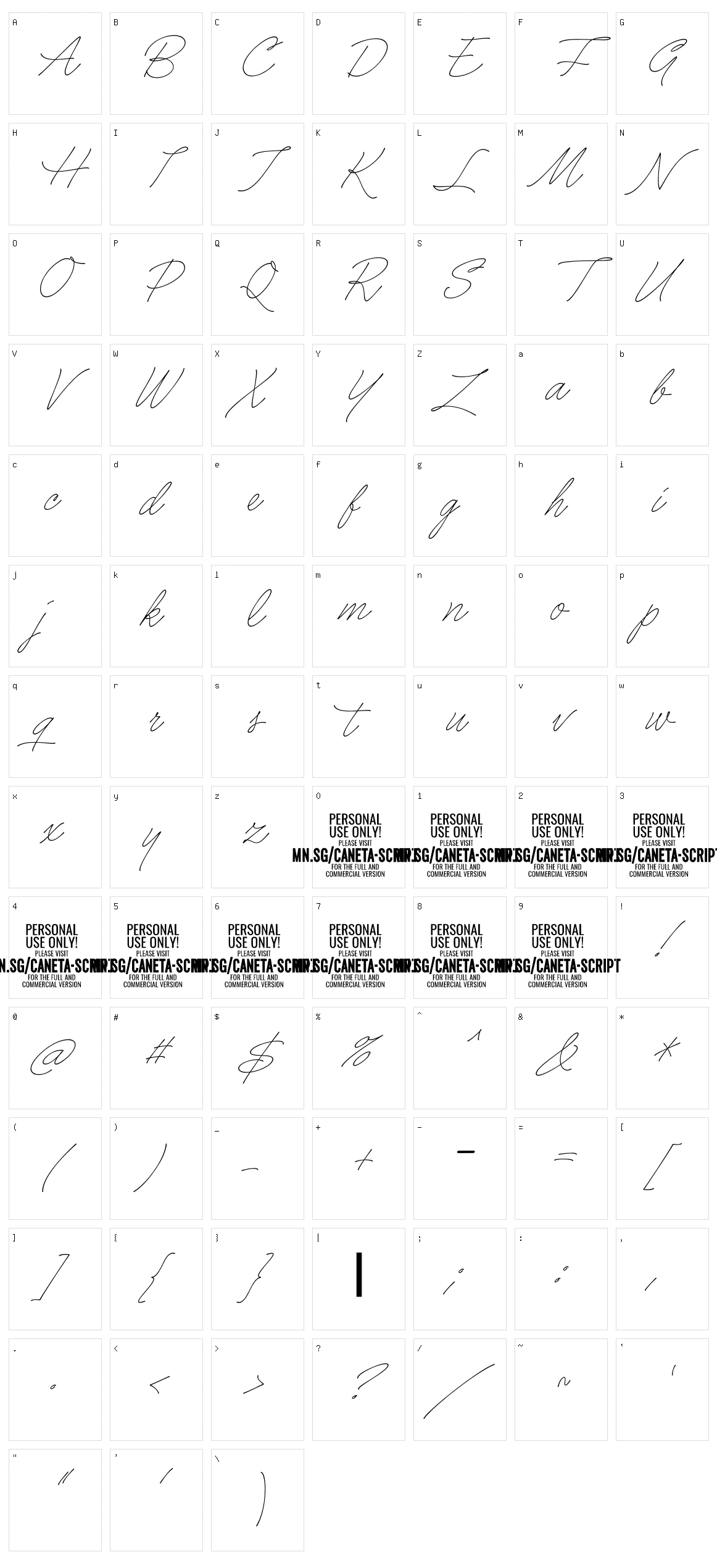
Caneta Script captures the essence of traditional handwriting with its pen and ink-inspired calligraphy style. Reminiscent of handwritten letters and feather pen scribbles, this unique font exudes a sense of authenticity and personality, making it perfect for signatures and personal branding.
The typeface is the result of a studies of mid-century ads and correspondence. The delicate penmanship and nostalgic charm of these materials ignited a vision, leading to the birth of Caneta Script. The font embodies the essence of the past while catering to the modern world, a testament to the timeless allure of the 1950s and the art of handwritten letters.
The Caneta Script font family comes in a range of weights, including Thin, Light, Regular, Bold, and Black, offering versatility to suit your design needs. The diverse styles allow you to convey different moods and create visual interest in your projects.
Equipped with advanced OpenType functionality, Caneta Script delivers top-notch quality and ensures full control and customizability. The font includes stylistic alternates, ligatures, and additional features to enhance your designs and make them truly one-of-a-kind.
In addition to its complete support for Latin-based languages, Caneta Script also covers Arabic scripts. Carefully crafted to ensure authenticity and harmony, the font seamlessly incorporates Arabic letterforms, making it a versatile choice for projects that require Middle Eastern compatibility.